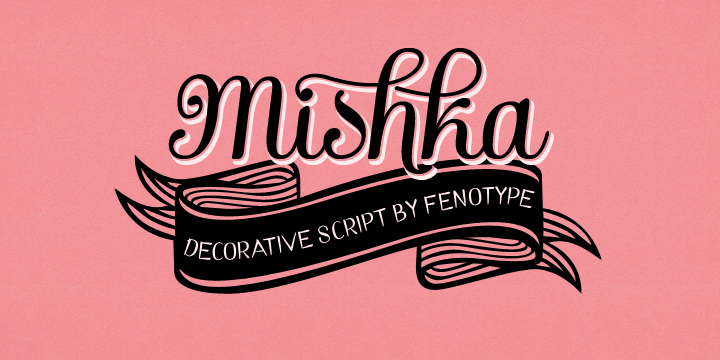
Mishka
Mishka can be referred to as an elegant decent script created by Emil Karl Bertell. The typeface is also known to be inspired by the Barber and Pepita Script releases by Bertell. Mishka comes with crystal clear letterforms yet huge number of options for more decorative custom headlines. You can easily turn on the alternatives … Read more